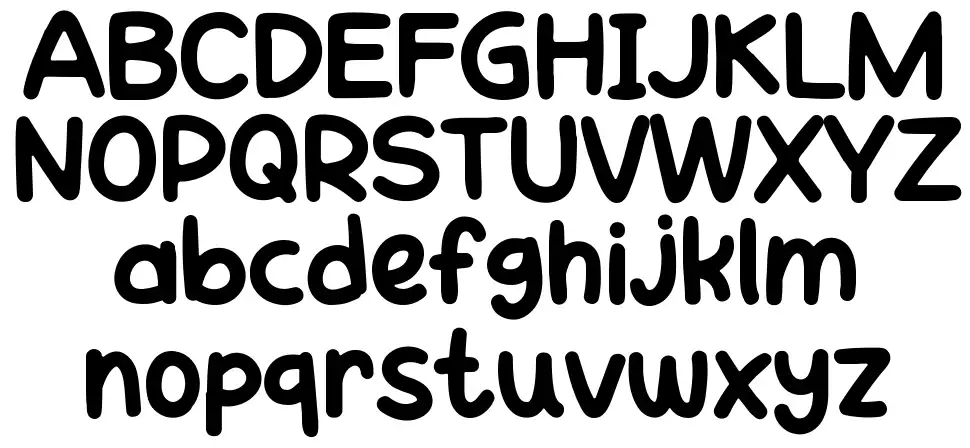
Pathagonia Font By Tokopress Fontriver Download pathagonia font · free for personal use · this demo font is for personal use only! but any donations are very appreciated. link to purchase full version and commercial license: justthe. Download free pathagonia font, view its character map and generate text based images or logos with pathagonia font online. A playful, rounded, handwritten style font with a casual and friendly appearance. the pathagonia font includes 108 carefully crafted characters. preview your text instantly on ffonts to see if it fits your design. Light hearted sans serif font that match perfectly to any leisure and travelling purpose. suit perfectly for travelling and leisure segmented magazine, poster, movie title, music poster, covers, thumbnails, social media page covers and so on….
Pathagonia Font â º Fontesk A playful, rounded, handwritten style font with a casual and friendly appearance. the pathagonia font includes 108 carefully crafted characters. preview your text instantly on ffonts to see if it fits your design. Light hearted sans serif font that match perfectly to any leisure and travelling purpose. suit perfectly for travelling and leisure segmented magazine, poster, movie title, music poster, covers, thumbnails, social media page covers and so on…. The typeface contains 1 file and supports 12 languages. the font can be used in non commercial use. pathagonia was developed tokopress. Download pathagonia font for pc mac for free, take a test drive and see the entire character set. moreover, you can embed it to your website with @font face support. Pathagonia font is a playful handwritten script by tokopress. ideal for cute logos, crafting, and posters. download this unique typeface for personal use. Archive of freely downloadable fonts. browse by alphabetical listing, by style, by author or by popularity.
Pathagonia Font â º Fontesk The typeface contains 1 file and supports 12 languages. the font can be used in non commercial use. pathagonia was developed tokopress. Download pathagonia font for pc mac for free, take a test drive and see the entire character set. moreover, you can embed it to your website with @font face support. Pathagonia font is a playful handwritten script by tokopress. ideal for cute logos, crafting, and posters. download this unique typeface for personal use. Archive of freely downloadable fonts. browse by alphabetical listing, by style, by author or by popularity.
Pathagonia Font â º Fontesk Pathagonia font is a playful handwritten script by tokopress. ideal for cute logos, crafting, and posters. download this unique typeface for personal use. Archive of freely downloadable fonts. browse by alphabetical listing, by style, by author or by popularity.